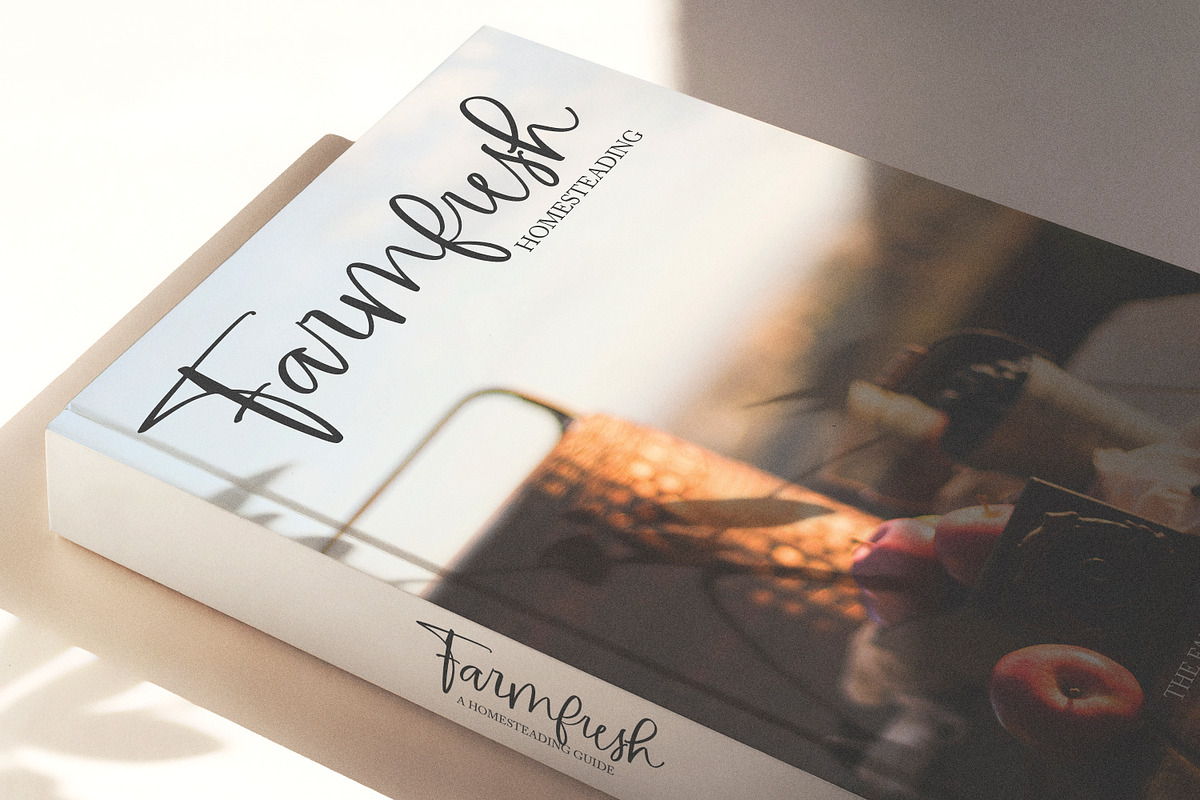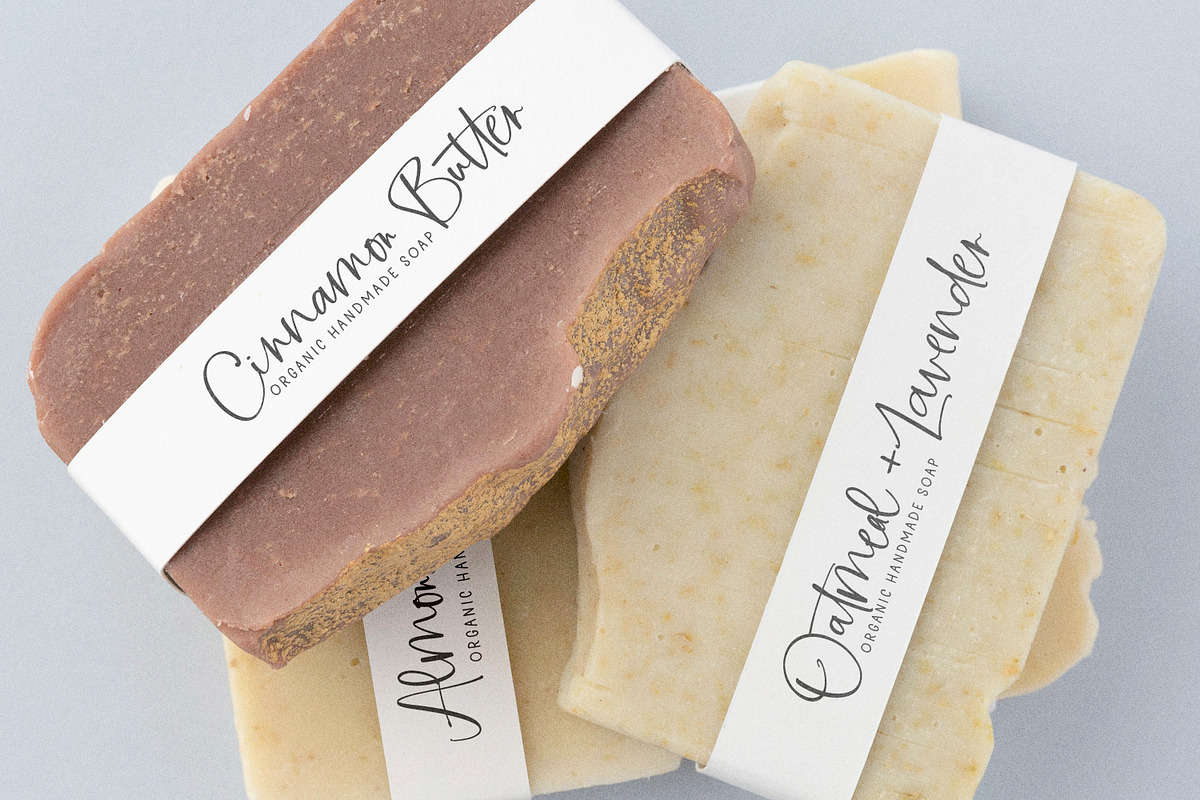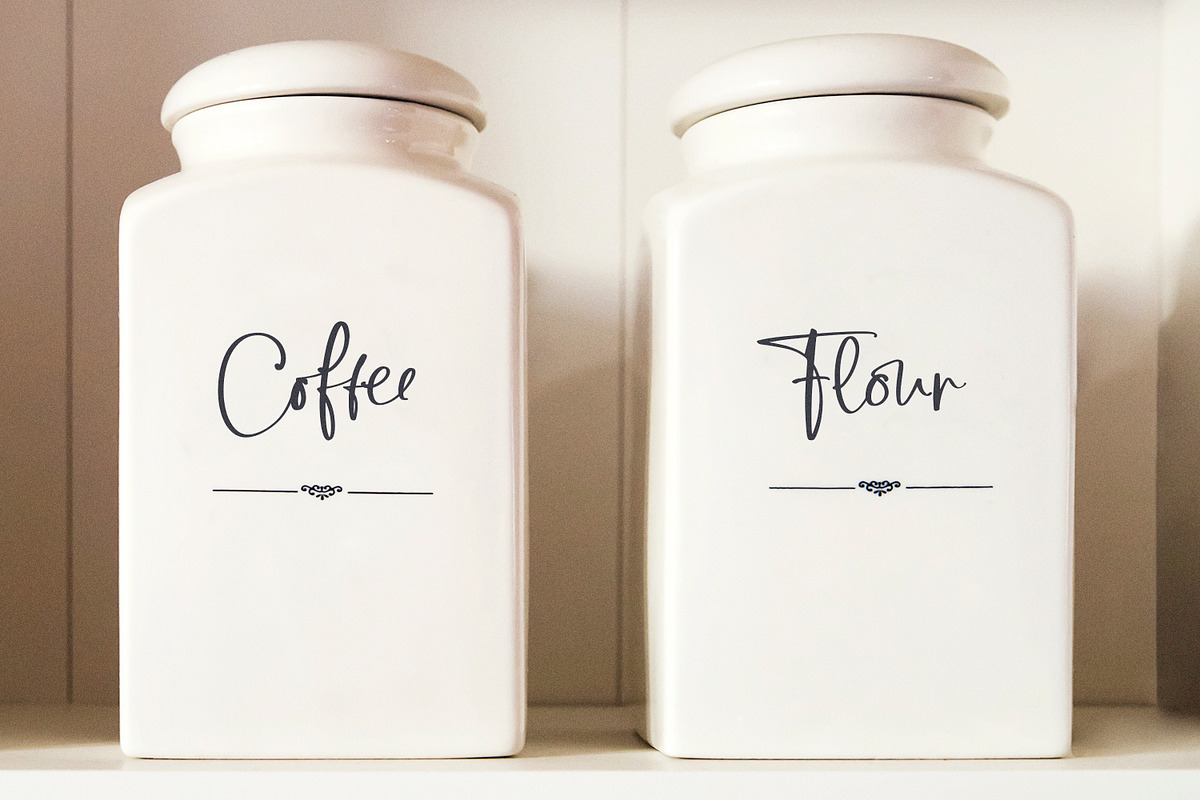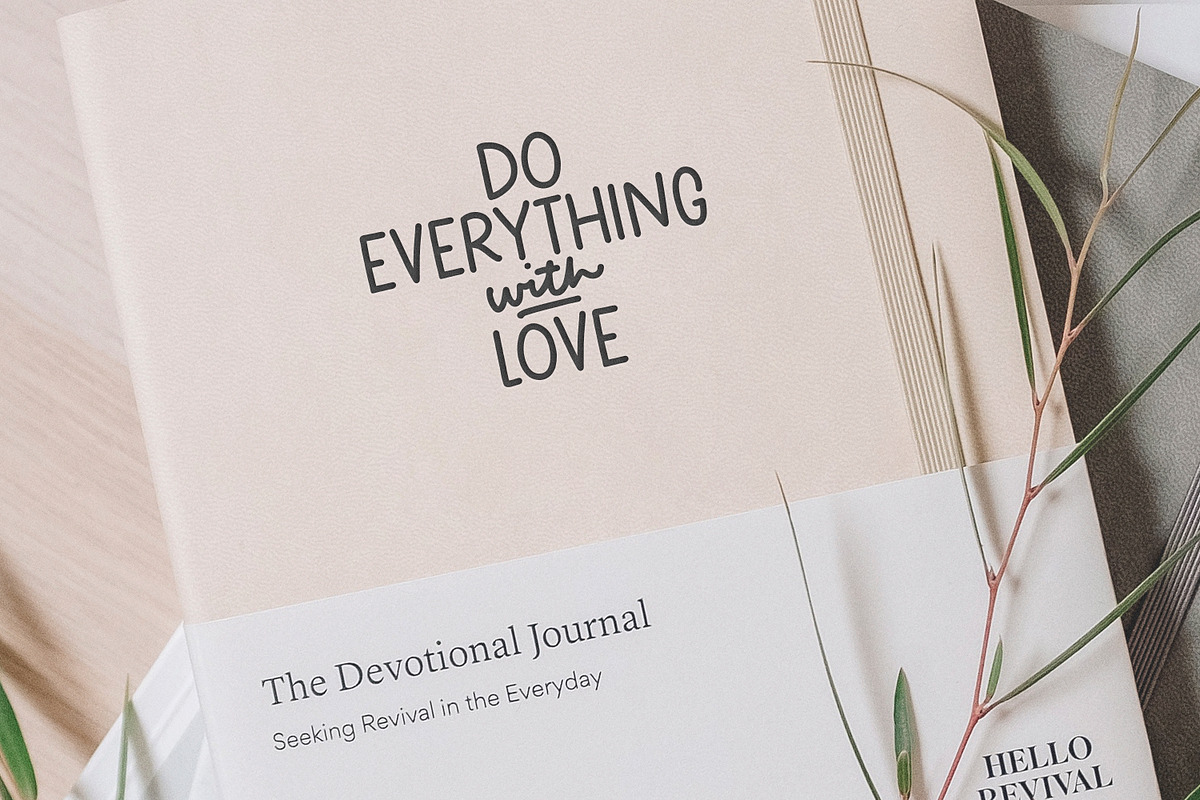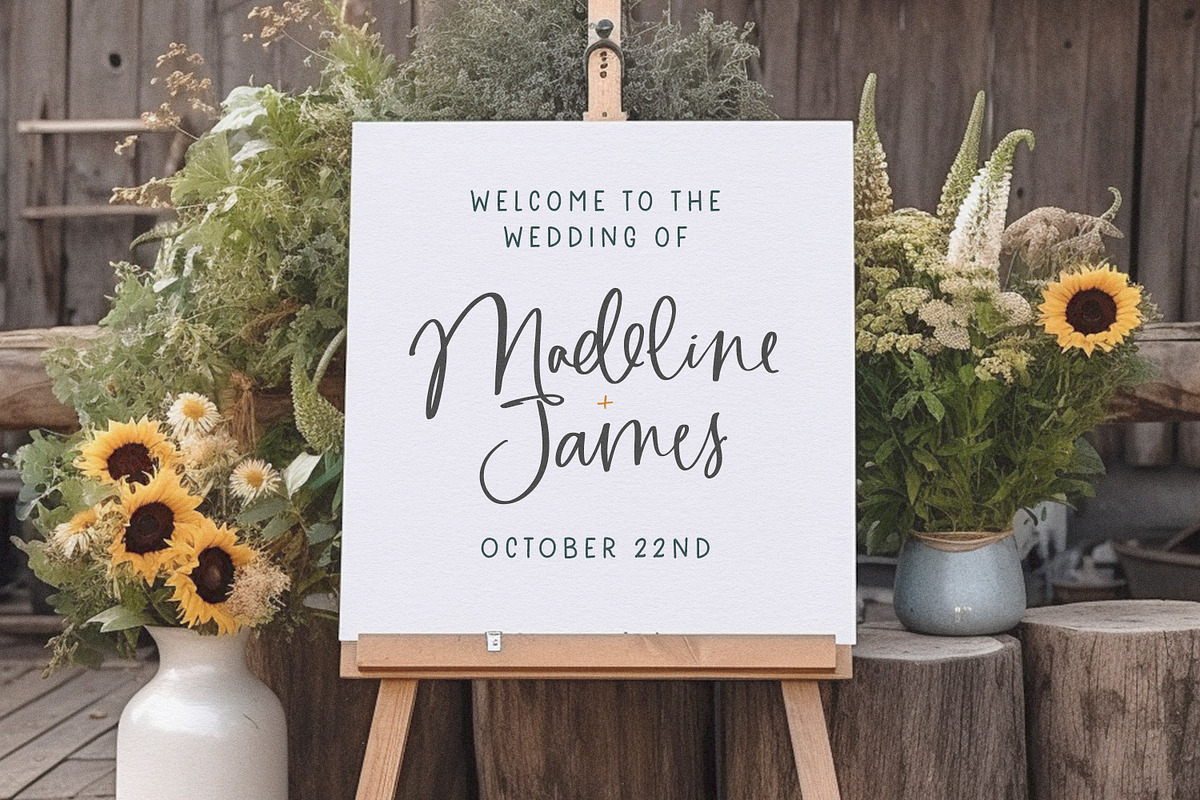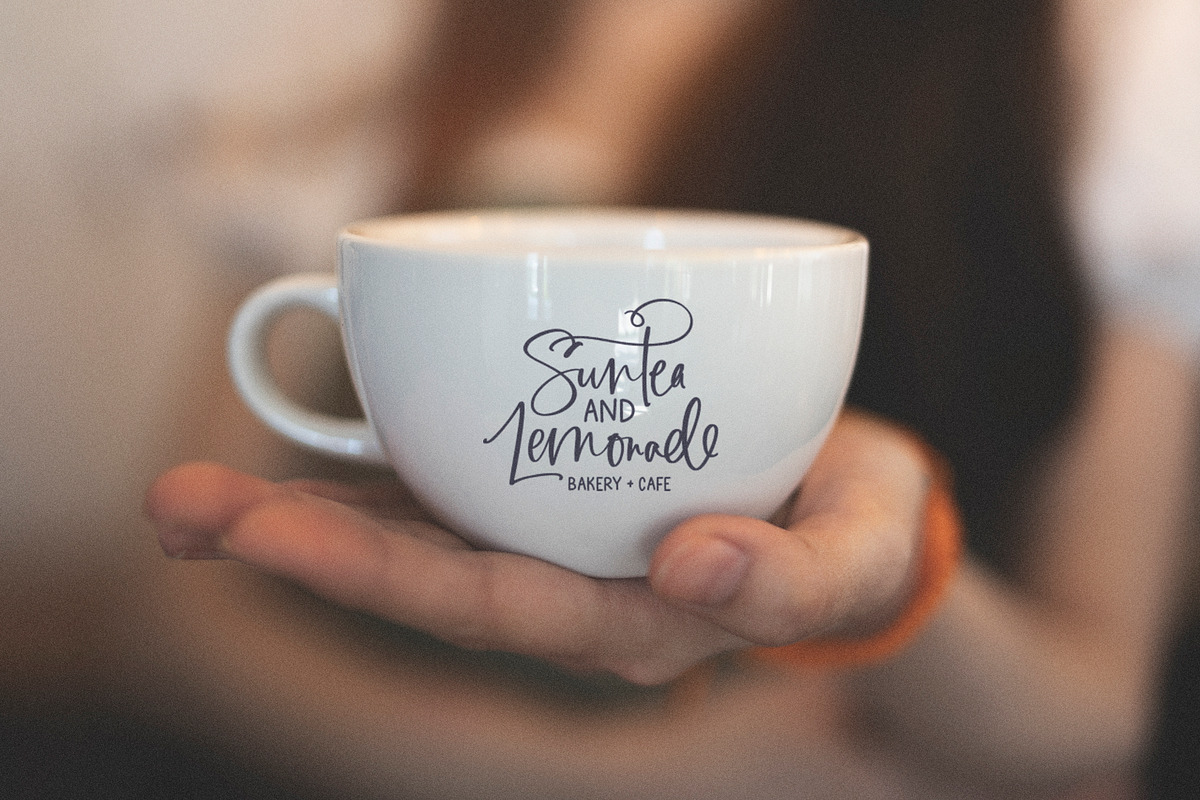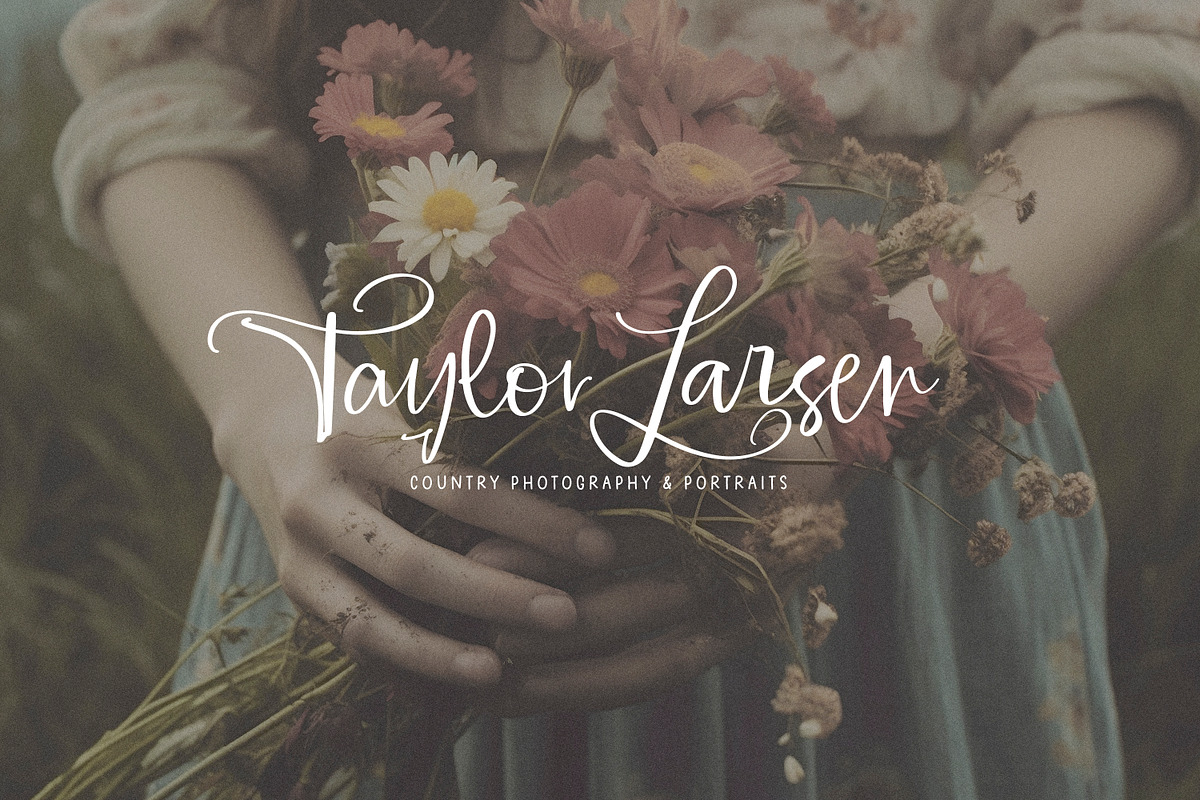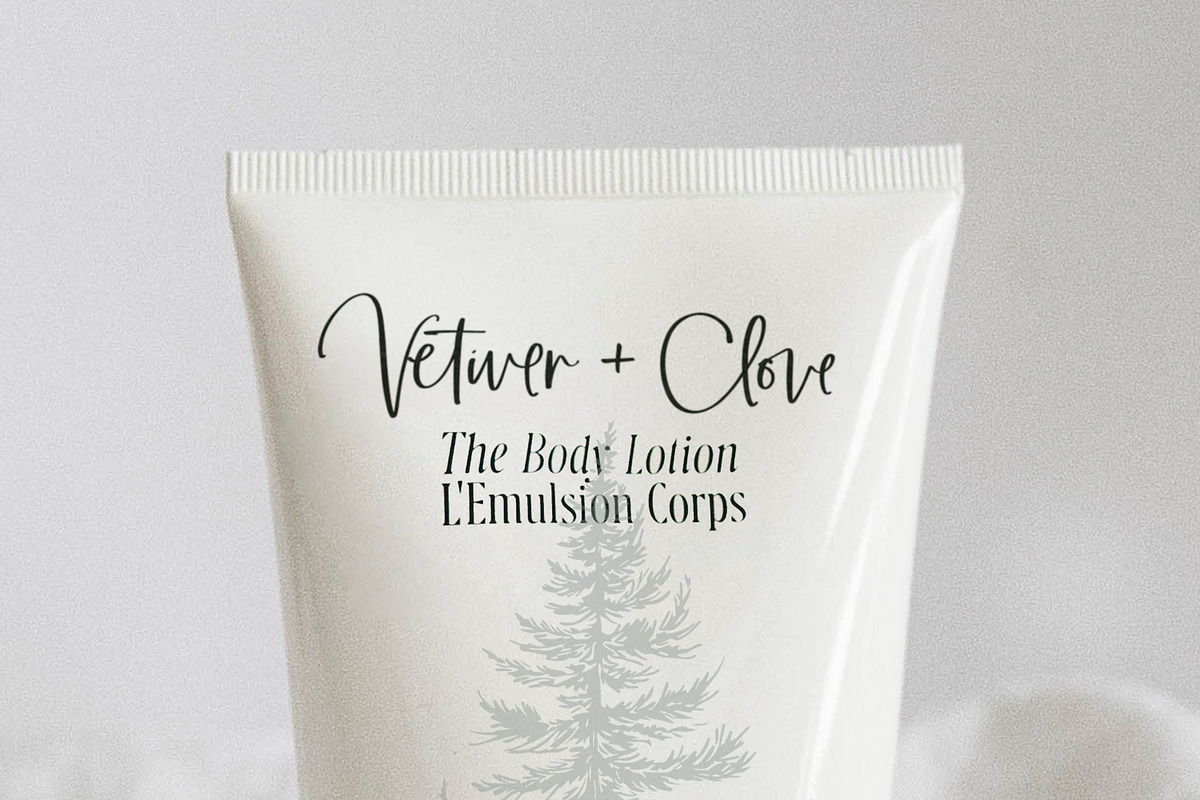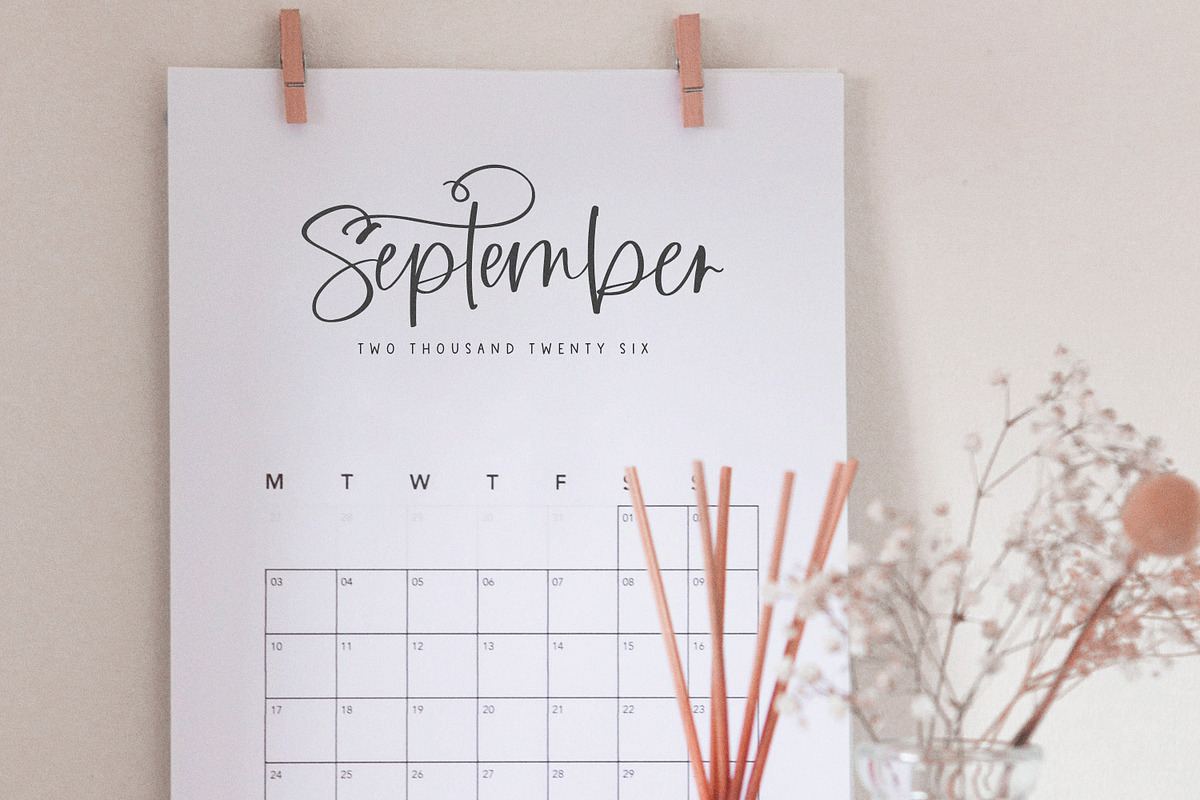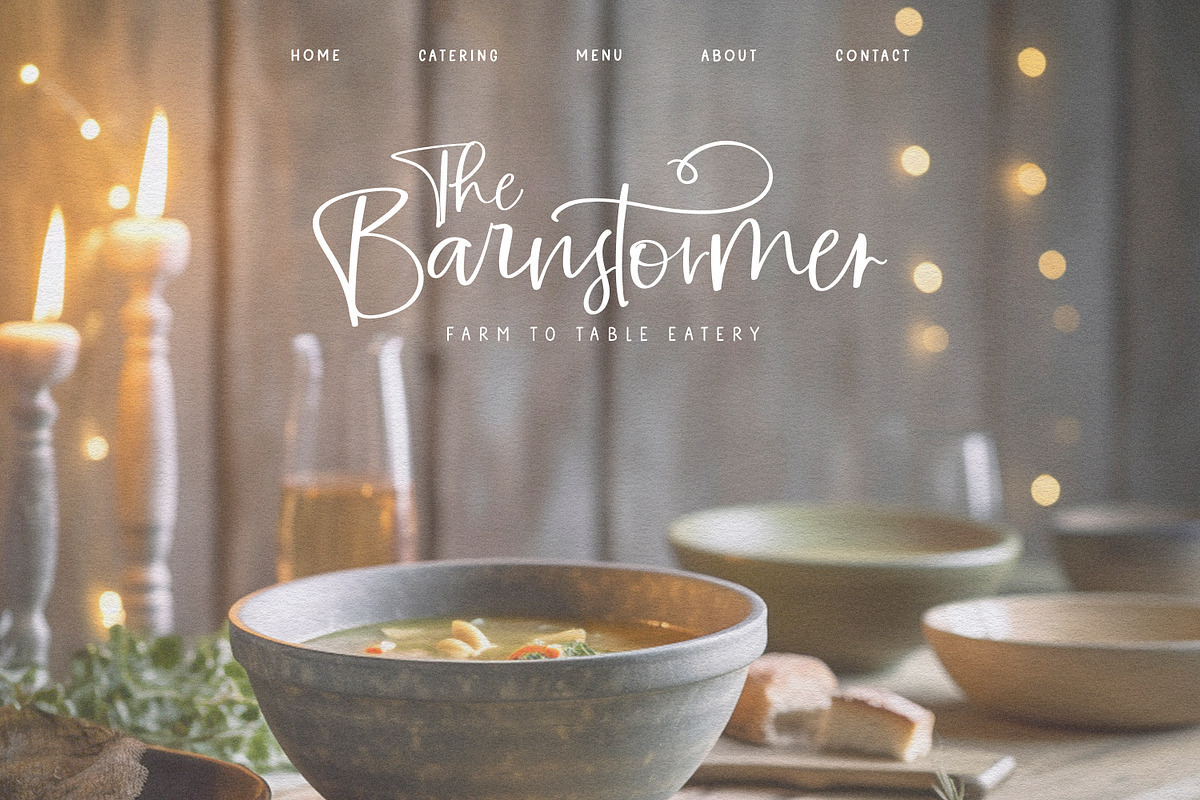
American Honey | Script & Sans
Say hello to American Honey, a lovely calligraphy font, sweet sans serif and a super handy pack of vintage graphics for your design arsenal. American Honey boasts over 200 alternates, ligatures and end characters, language support and 28 adorable farm/nature/garden graphics for packaging, editorials, quotes, logos, ads, signage and loads more!
- American Honey Script (OTF & TTF) - A delicate calligraphy font with a dancing baseline and over 200 handwritten alternates.
- American Honey Sans (OTF & TTF) - A complimentary sans serif with language support and catchwords.
- American Honey Elements (AI, EPS & PNG) - A sweet set of 28 vintage vector graphics to spice up your next project.